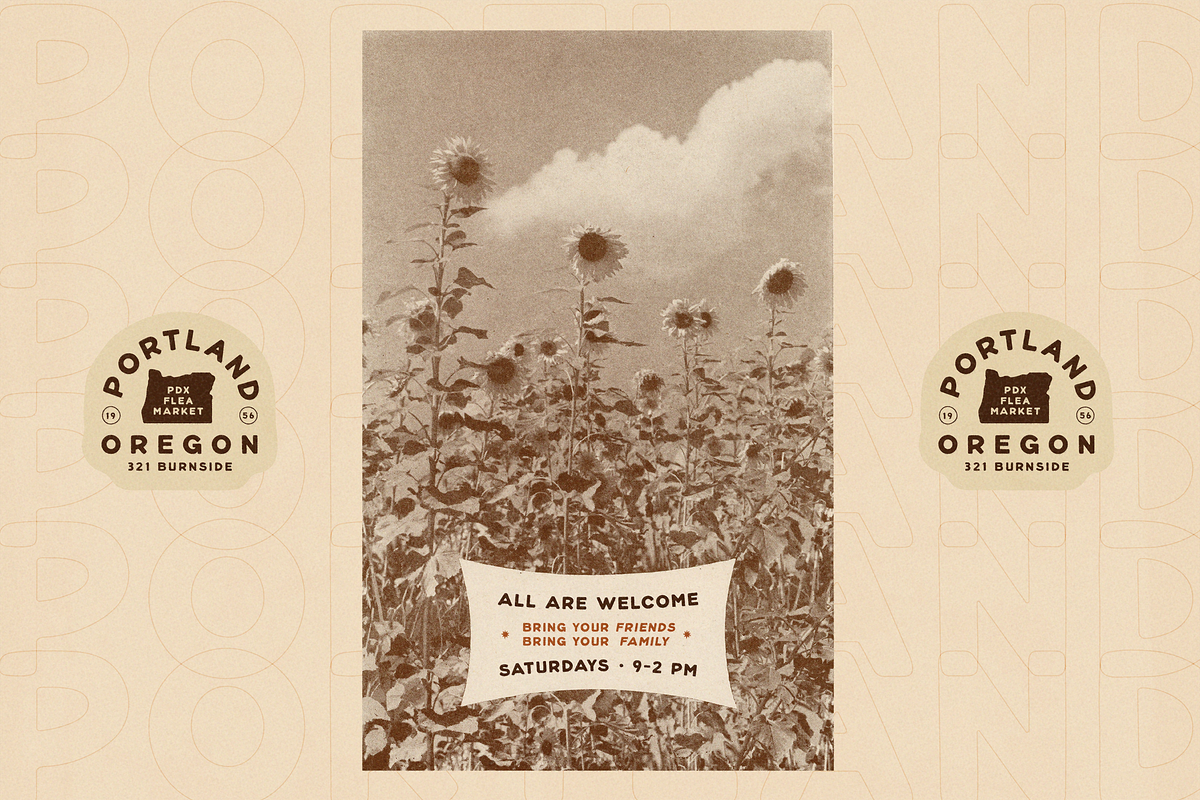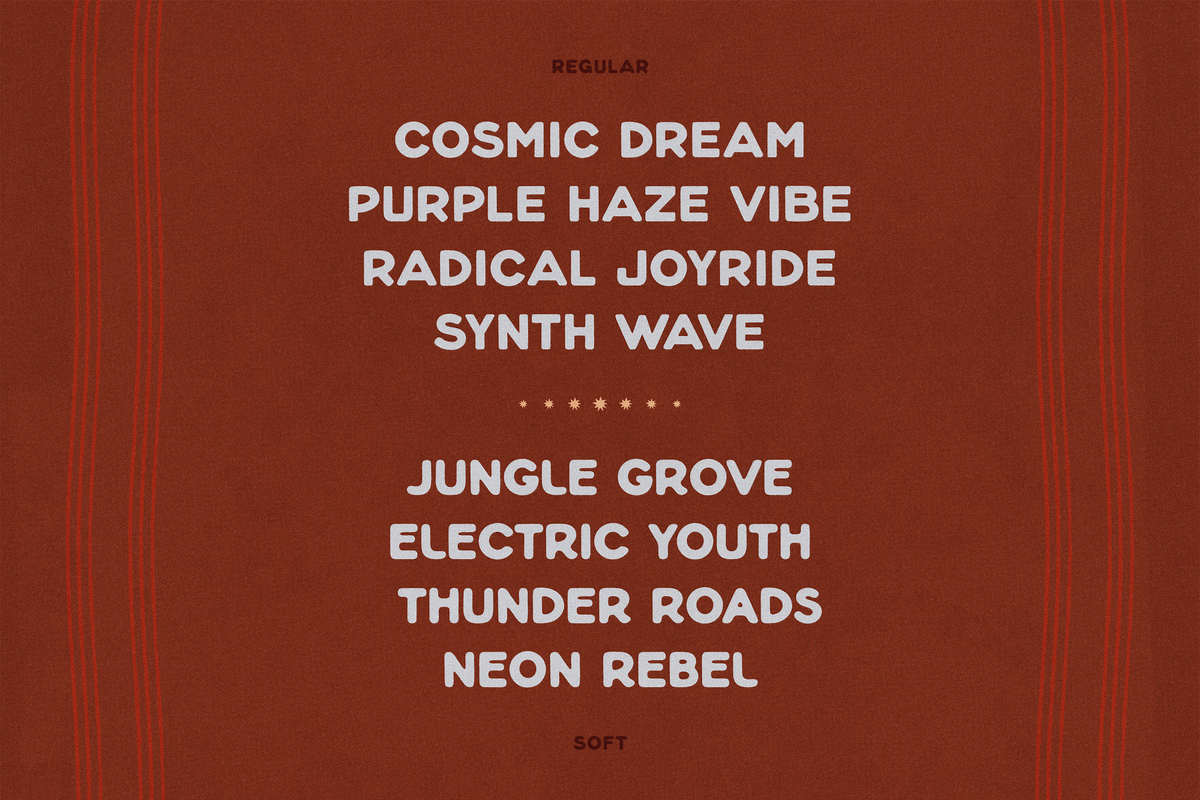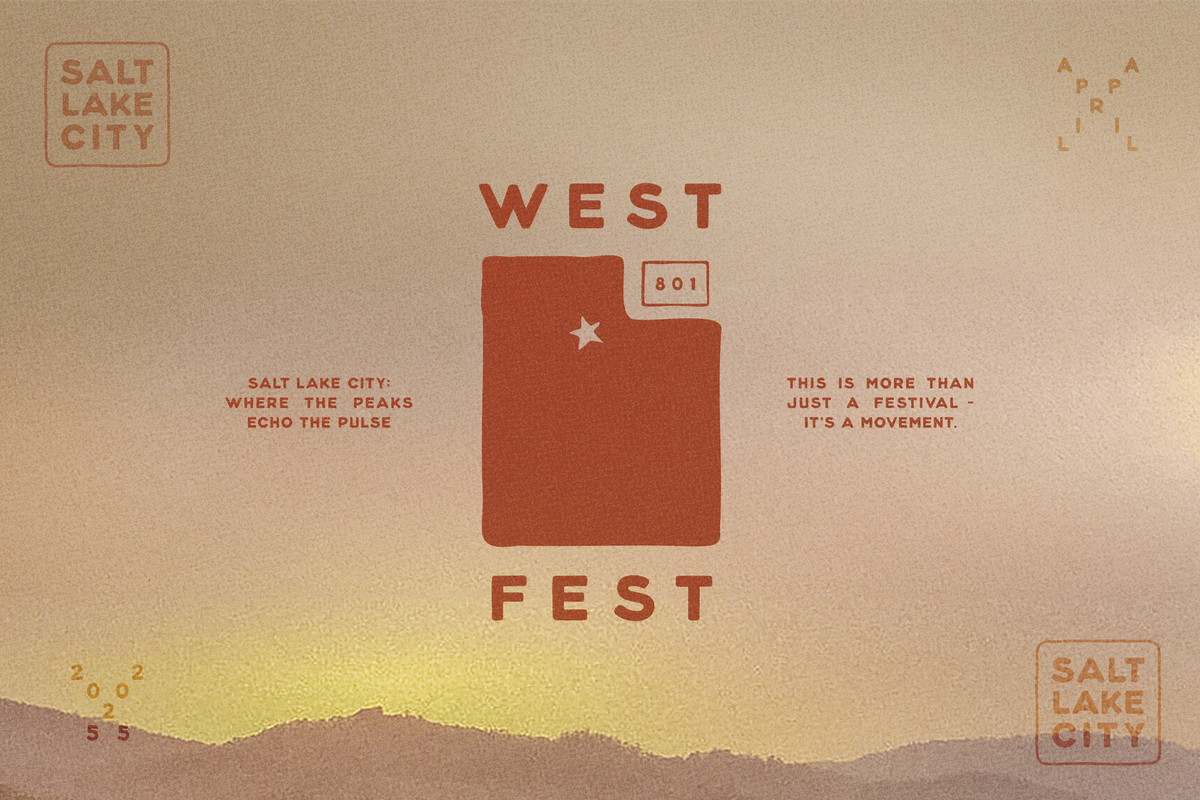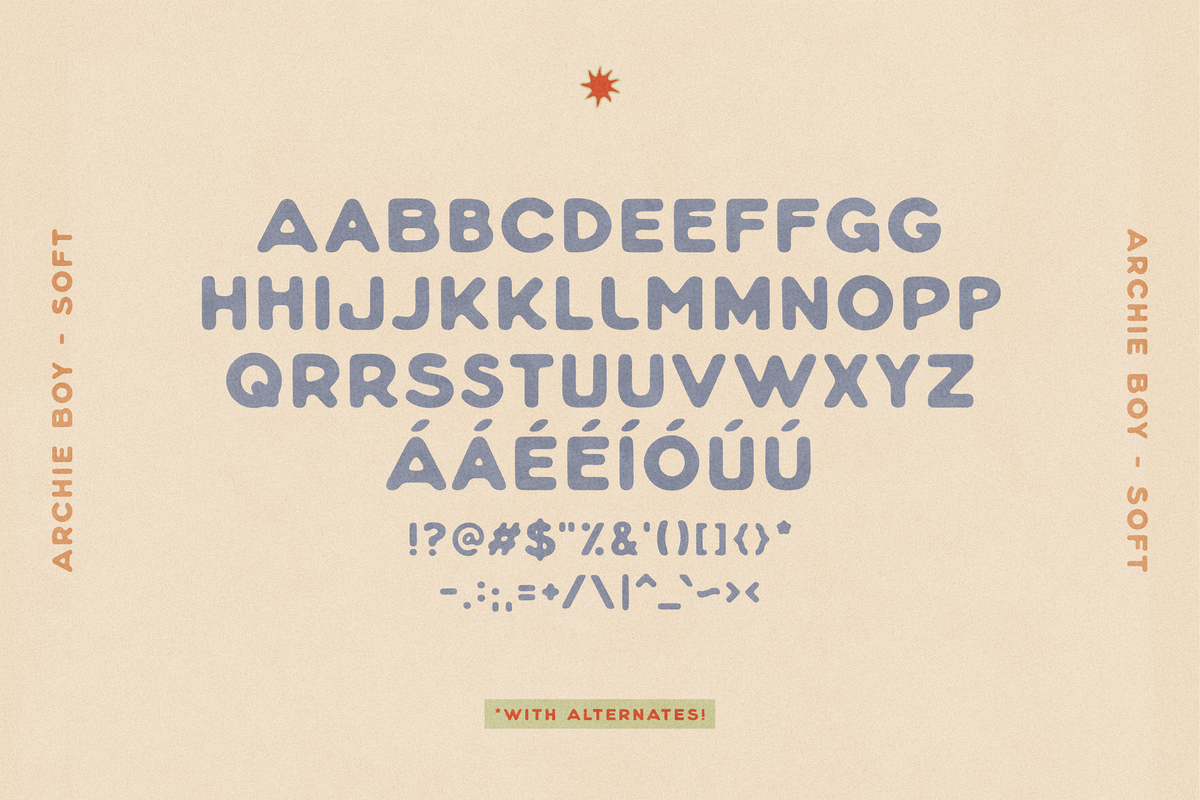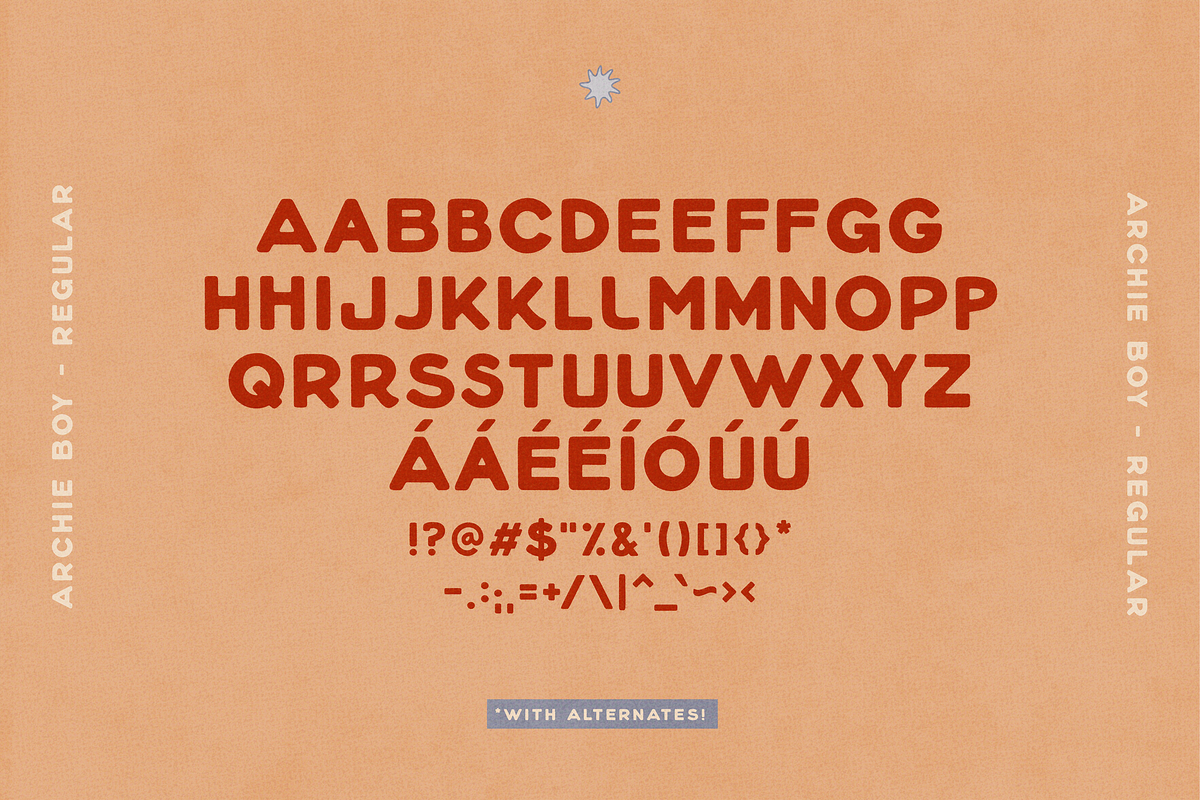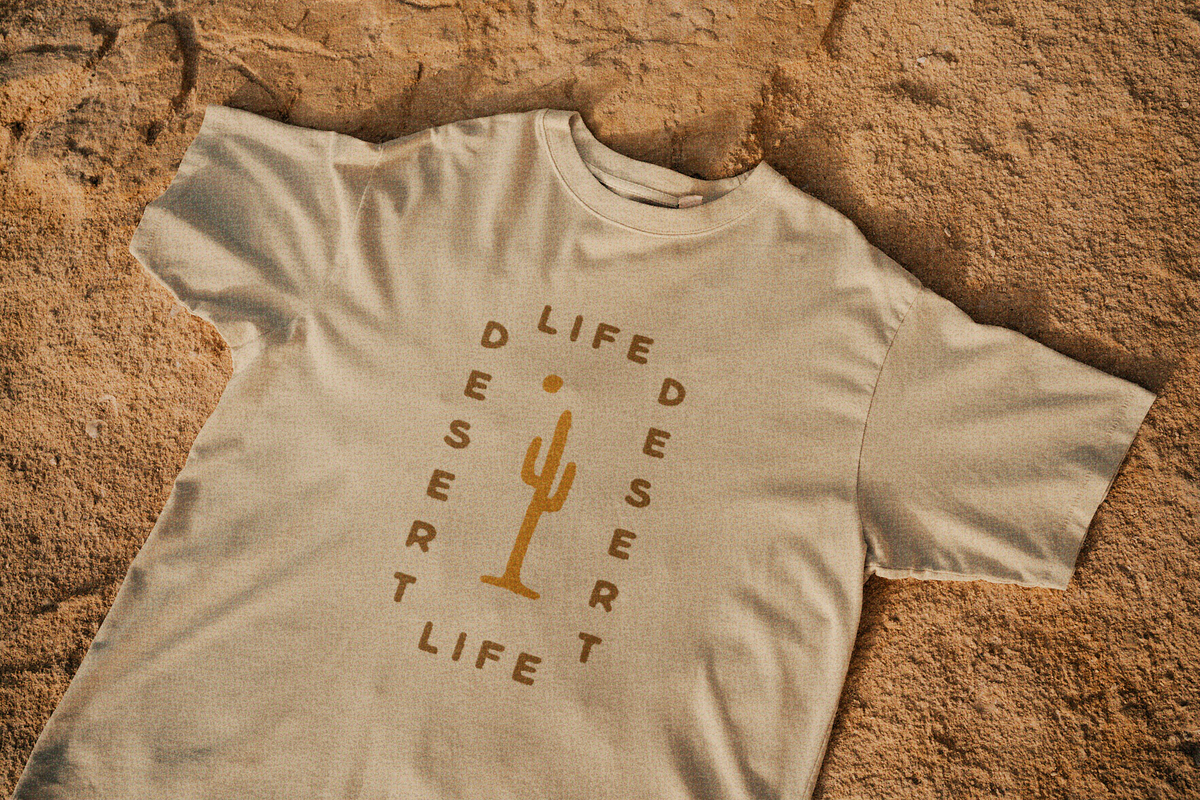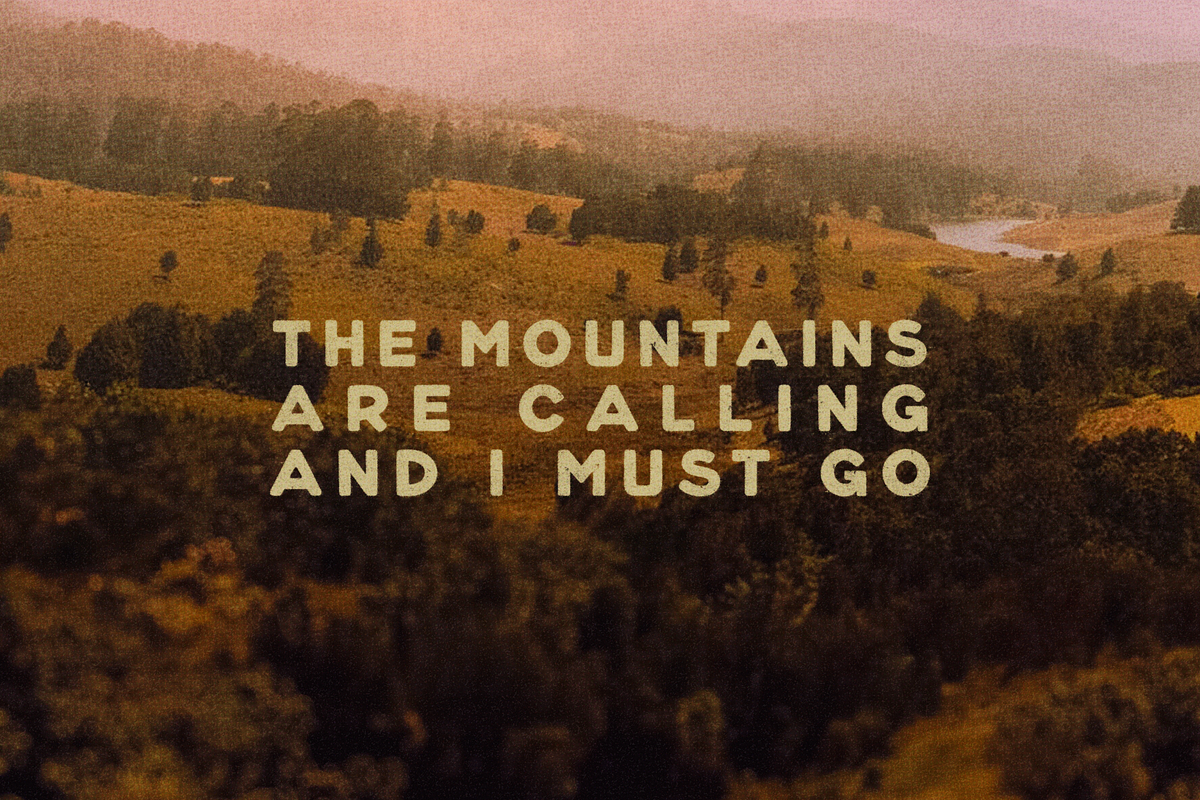
ARCHIE BOY | A Playful Bold Sans
My first font, tried and true: Archie Boy, a bold and versatile sans-serif with a retro-modern vibe. Designed to stand out, Archie Boy strikes the perfect balance between clean simplicity and playful character, making it a go-to choice for logos, branding, packaging, headlines, and more.
Archie Boy comes in two styles (Regular and Soft) and features unique alternates, giving you even more creative flexibility. Whether you’re working on bold, funky designs or more structured layouts, this font delivers on both. It’s sturdy, approachable, and made for creatives who want to make a statement without losing personality.
- Full uppercase
- Alternates for select characters
- Numbers, punctuation + symbols
✦ Great For:
- Logos & branding with personality
- Food, drink, & all sorts of product packaging
- Bold social media graphics
- Merch design (stickers, tees, patches)
- Editorial design & headline typography
- Retro-inspired or playful brand systems
Absolutely beautiful font. Easy to use, super clean, yet distinct enough to be totally unique. Gorgeous alternates are subtle and playful and the softened version is so cozy. This font perfectly hits that sweet spot between retro and modern. I love the chunky look so much and I can't wait to use it for a branding project!!